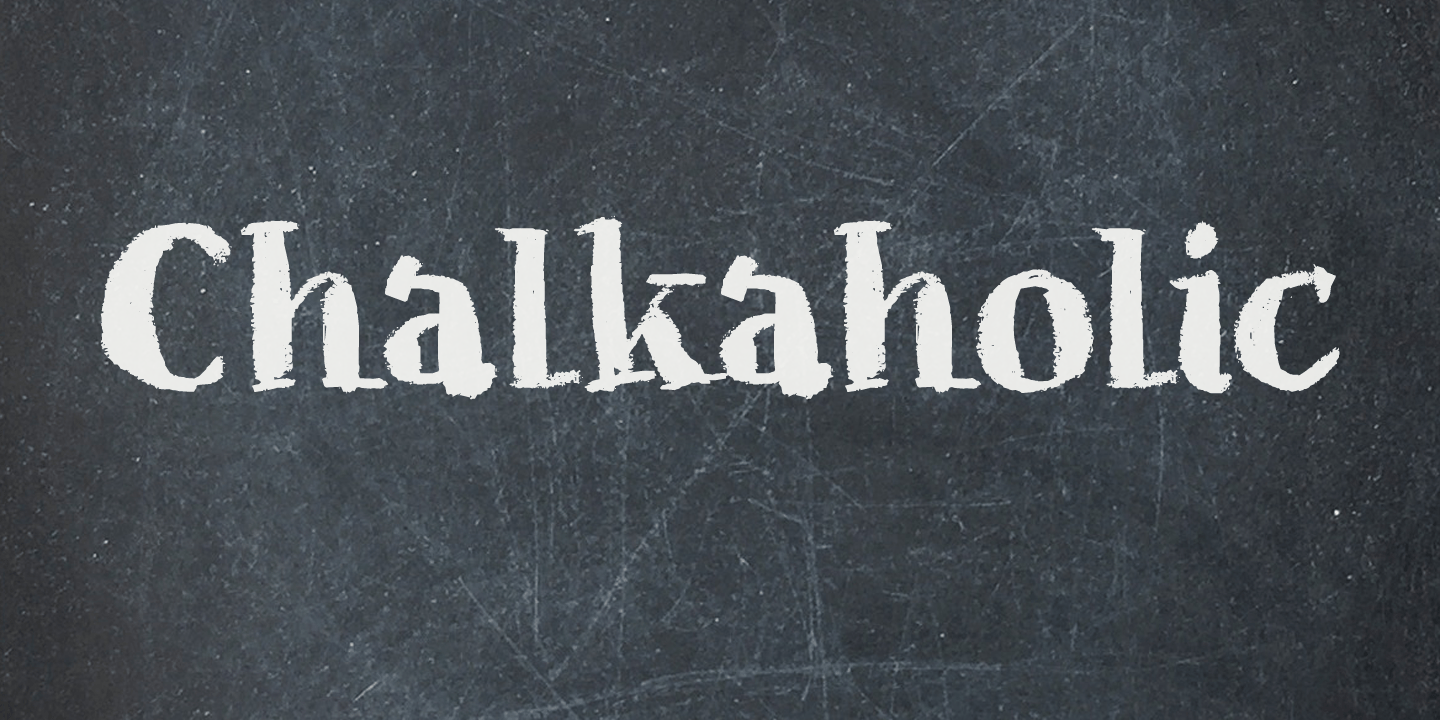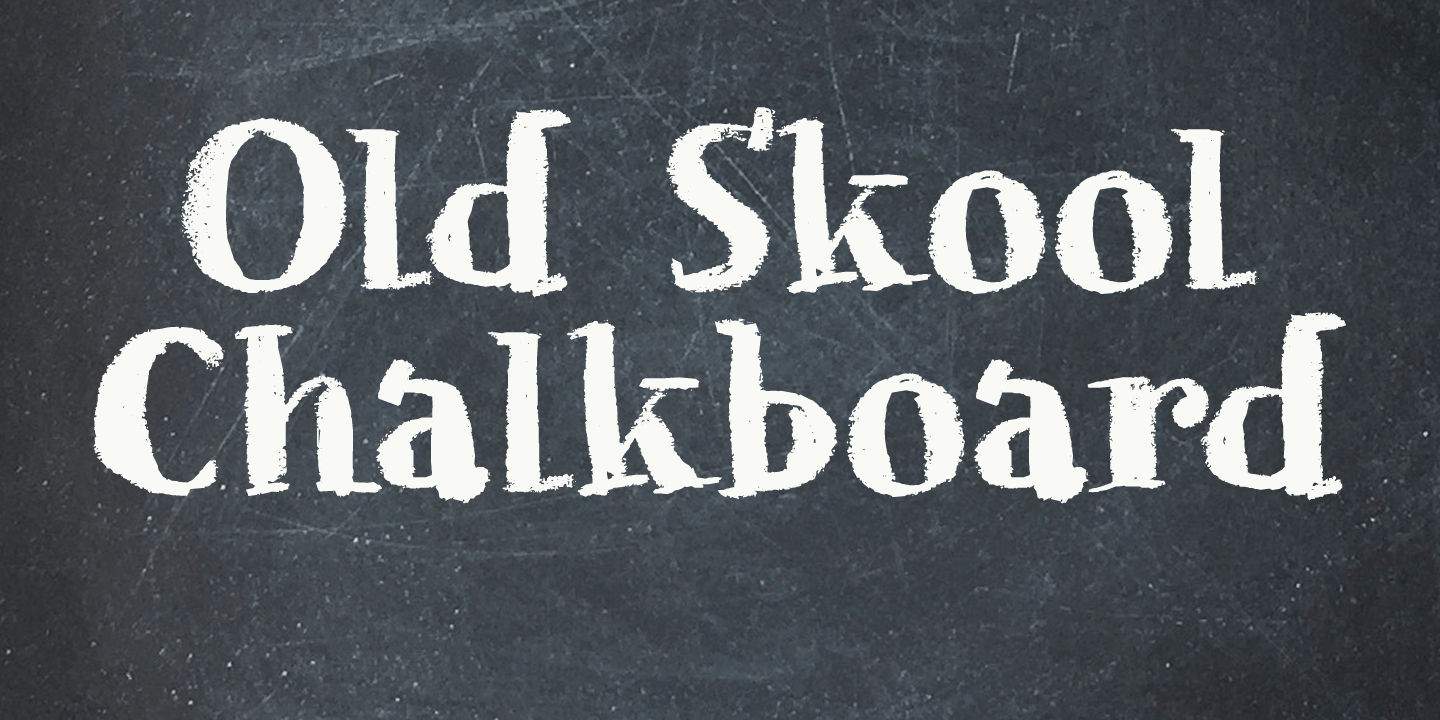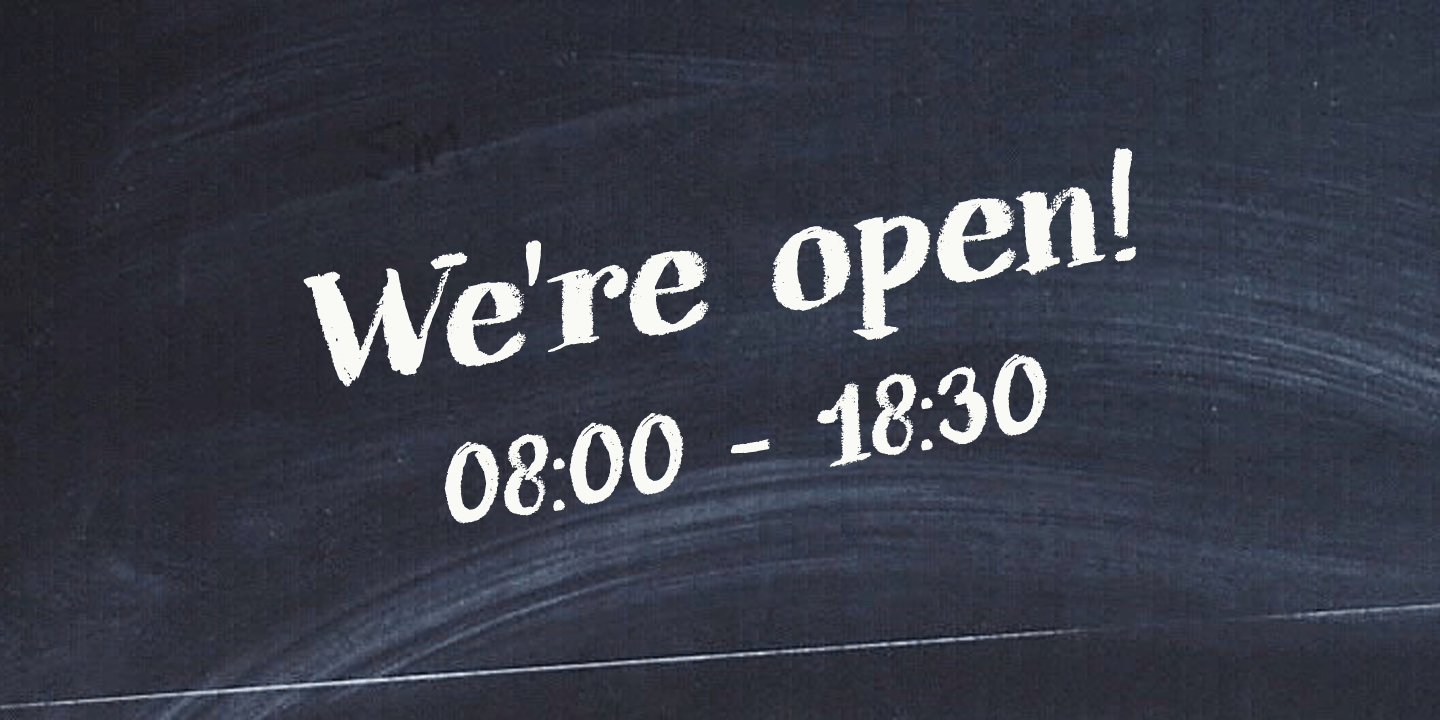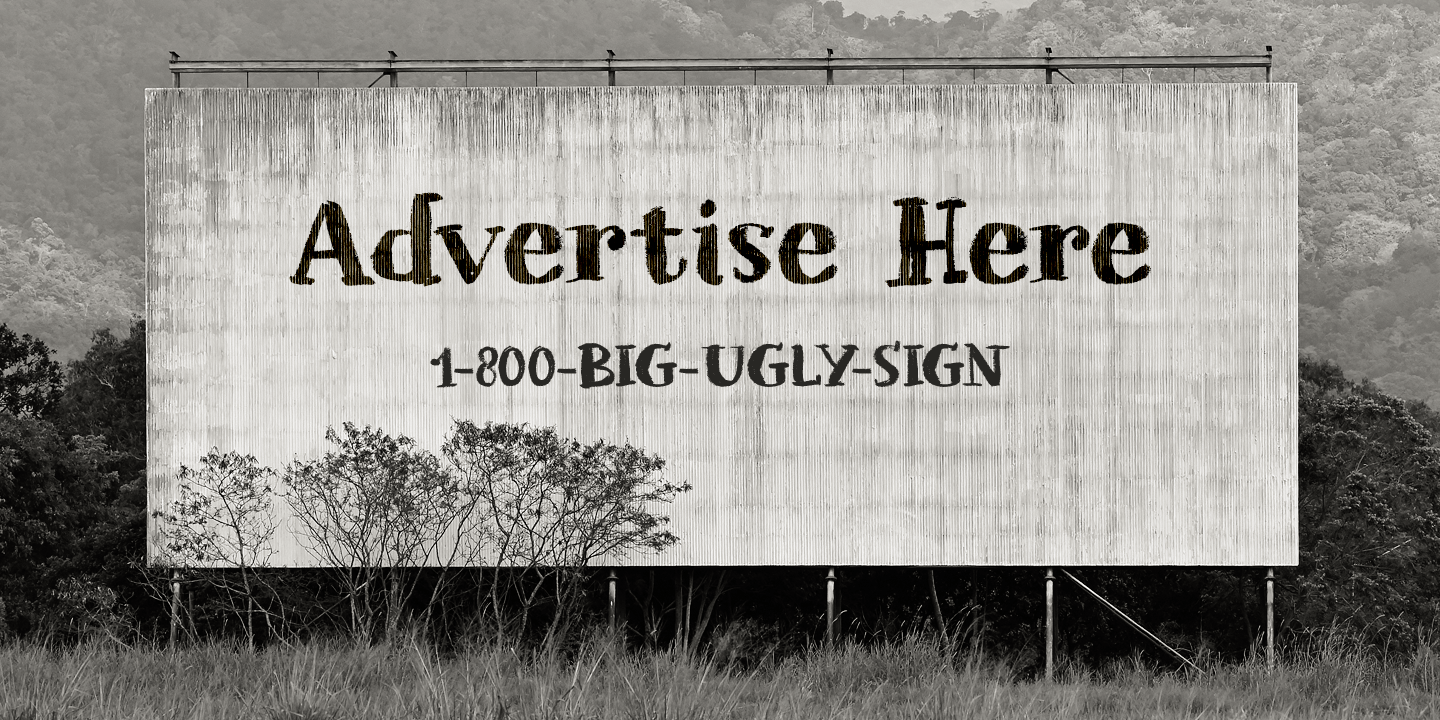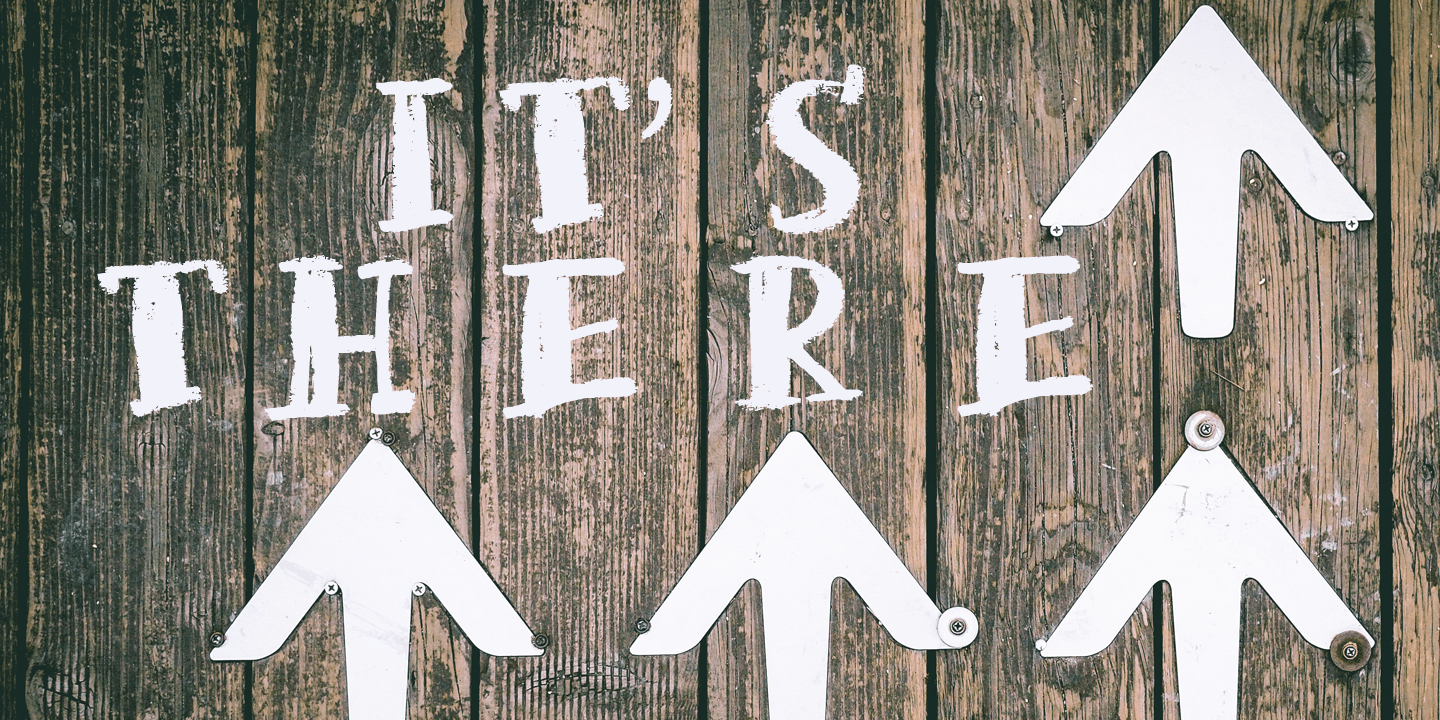
Chalkaholic
It seems black crayons are out of stock where I live. I can buy all the colors I want, except black ones? I really needed a crayon, so I bought this ridiculously expensive professional marker crayon ($14 for 1!!!) and created this font.
Use it for? well, uhm, dunno? book covers, product packaging and restaurant menus? Just have a ball!